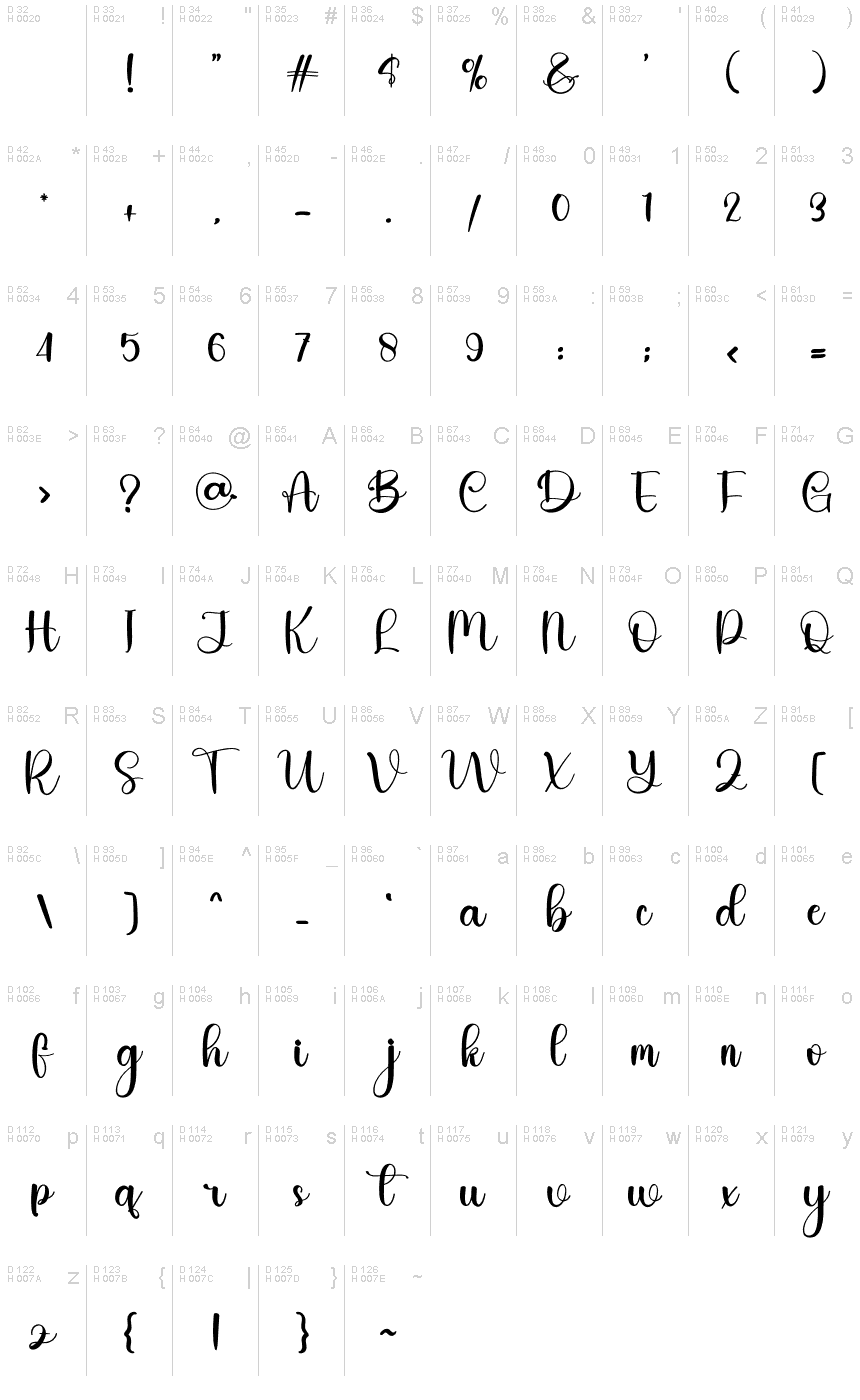
Study
Study, a captivating calligraphy font by Inermedia Studio, effortlessly combines elegance with modernity.
Its semi-light weight lends an ethereal touch to any project requiring sophistication and grace. Perfect for wedding invitations, luxury branding, or high-end editorial design, Study adds a touch of refined beauty to every word. With its graceful strokes and delicate curves, this font invites the reader on an enchanting journey through artful lettering.